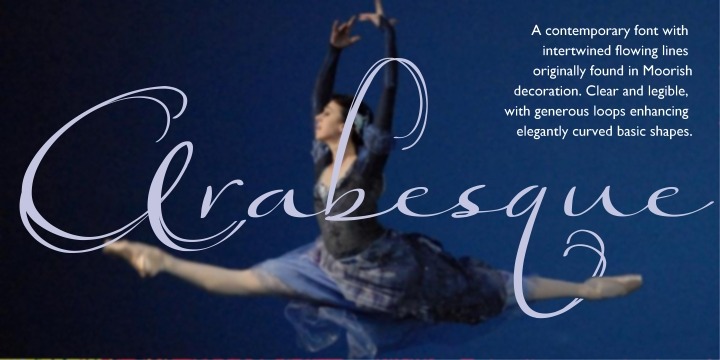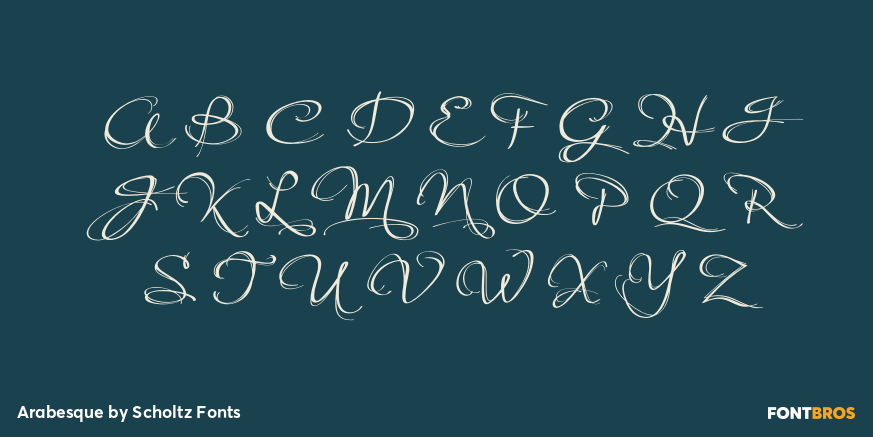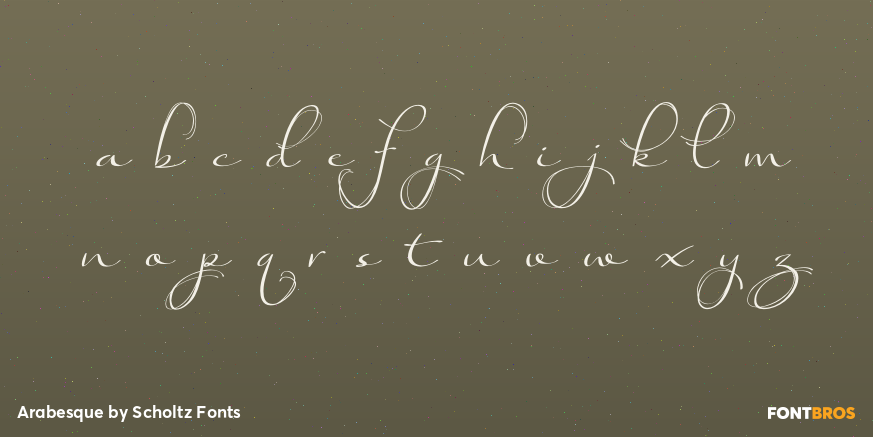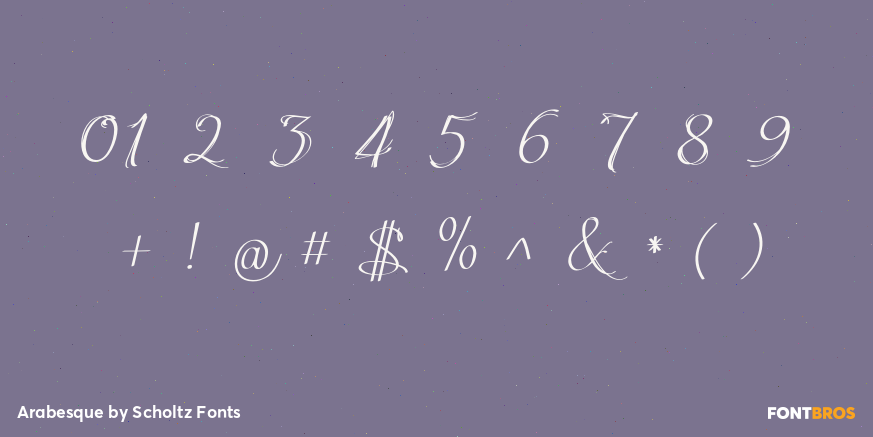
Arabesque
Arabesque is a romantic, ornamental font, in which intertwining, flowing lines and generous loops enhance the beauty of the basic shapes. Arabesque successfully combines legibility with a decorative, sumptuous style. In its European interpretation it was also called ?Moresque?.
The font ?Ability? was the origin of Arabesque, however, numerous, subtle changes set it apart. Arabesque, is characterised by a small x-height and relatively large ascenders and descenders (loops). The loops are created out of two or three delicate, intertwined lines that contrast with the much less expansive bowls and shapes of the lowercase letters. The capitals, more complex and composed of intertwined lines, echo the elegance of the loops on the lowercase letters. As a result of these changes ?Arabesque? is both more readable, controlled and extravagant than ?Ability?.
The font is fully professional: carefully letterspaced and kerned. It contains over 235 characters - (upper and lower case characters, punctuation, numerals, symbols and accented characters are present). It has all the accented characters used in the major European languages. Arabesque works well in Application packages such as Microsoft Word that do not support professional kerning.